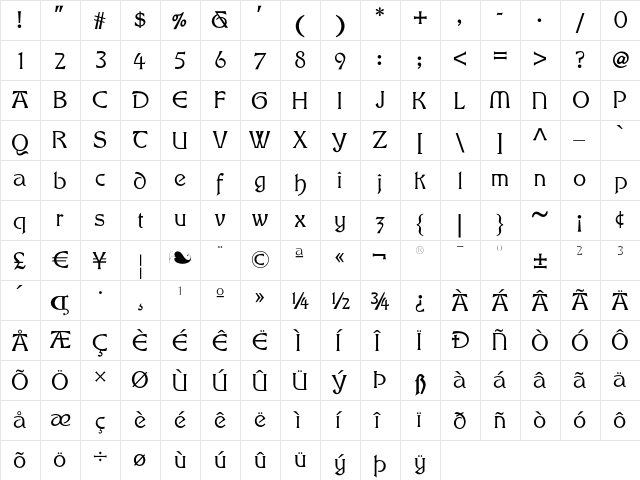
Hupp Antiqua NF Regular
| Foundry | Nick's Fonts |
| Designer | Nick Curtis |
Design Context for Hupp Antiqua NF Typeface
Hupp Antiqua NF takes a measured approach to typography — its balanced proportions and neutral character make it a reliable workhorse for both digital and print work.